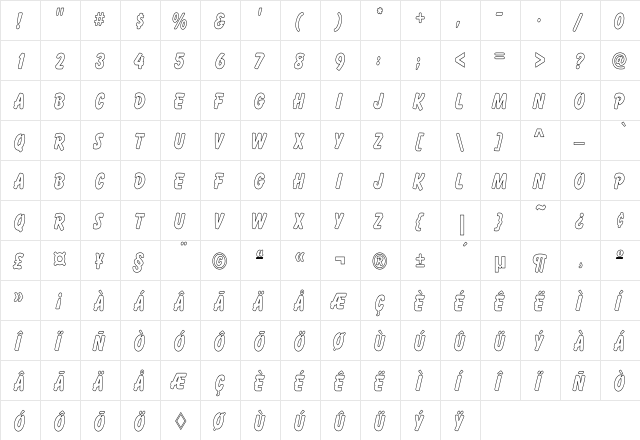
Alameda Hollow Thin Regular
Design Context for Alameda Hollow Thin Typeface
Alameda Hollow Thin is a composed and adaptable typeface that performs quietly and consistently across a wide range of design contexts. Its slender proportions lend an understated elegance to any composition.